Atlas
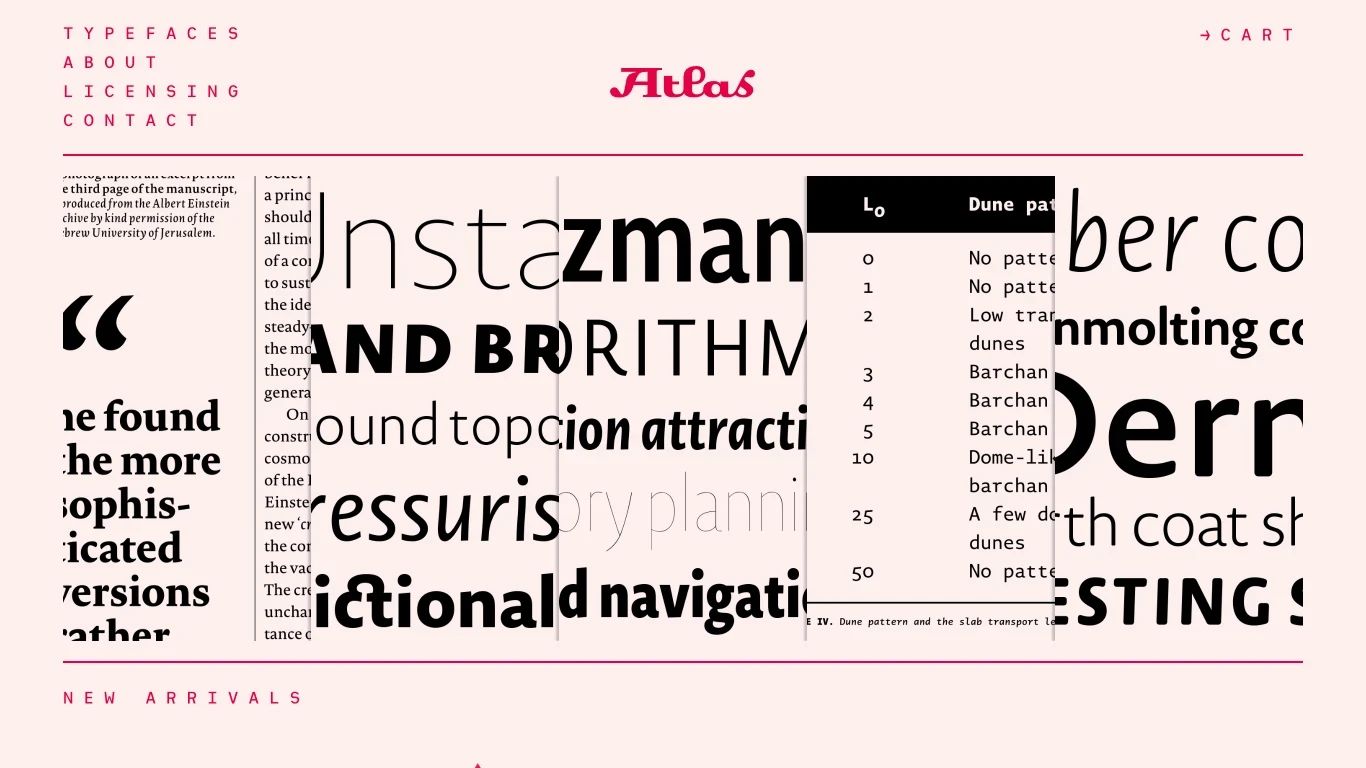
Germany
2012
Atlas Font Foundry is a Berlin-based type design studio established by Christoph Dunst. The foundry specializes in creating high-quality typefaces for professional use, particularly in editorial and corporate typography. Their notable typeface families include Novel and Heimat, each offering a range of styles and features to accommodate diverse design needs. Atlas Font Foundry is recognized for its finely crafted fonts that provide innovative design solutions and support multi-platform typography.